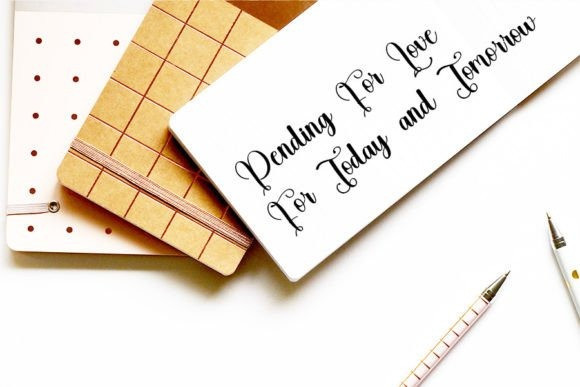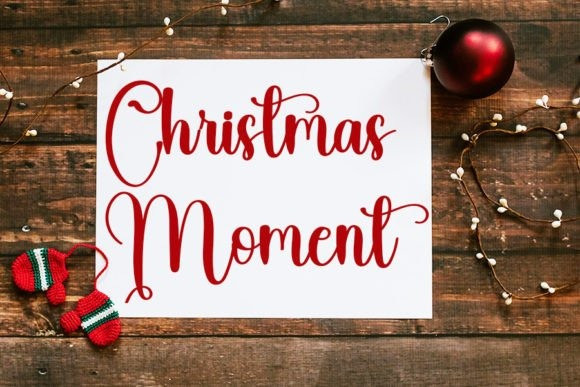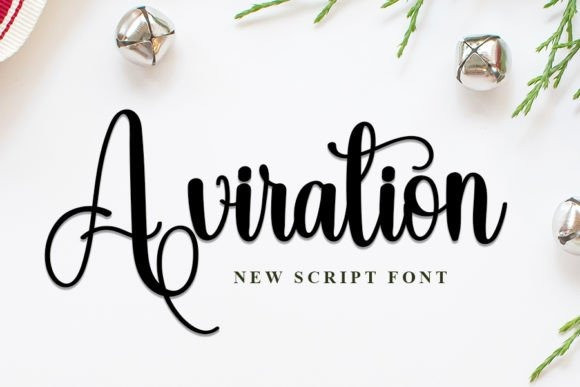
Aviration Script Font
Aviration Script Font is a casual and elegant script font. Fall in love with its incredibly versatile style and use it to create gorgeous wedding invitations, beautiful stationary art, eye-catching social media posts, and much more!